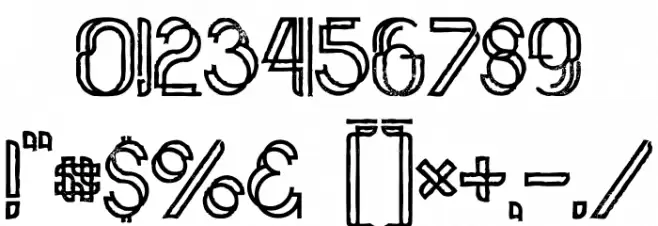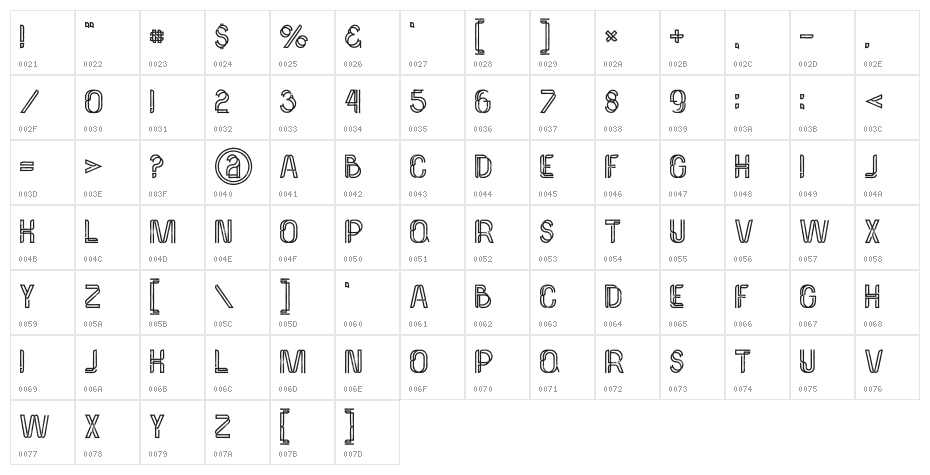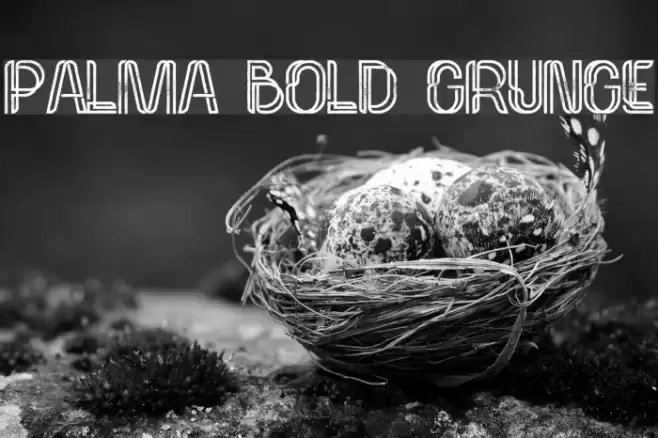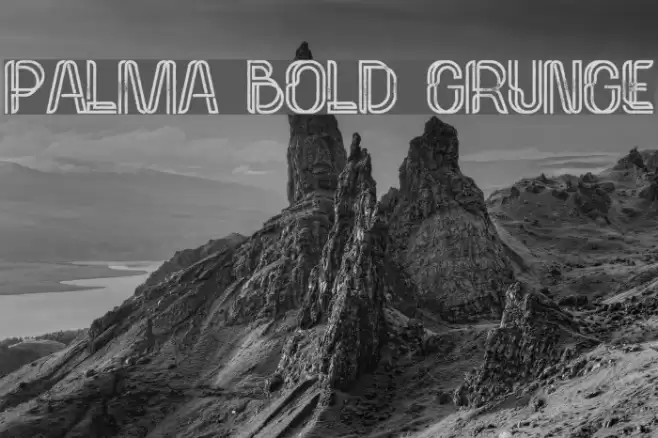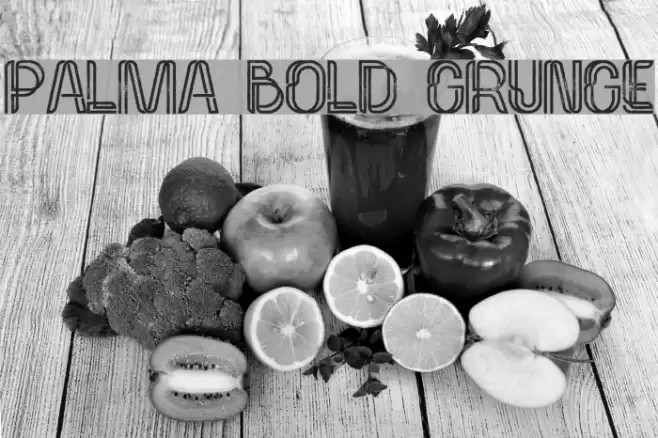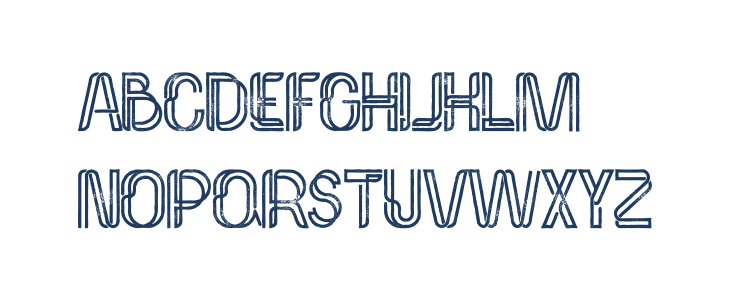
Palma Bold Grunge Font
Palma Bold Grunge Description
This font features a bold and grunge aesthetic, characterized by its distressed and textured appearance. The uppercase and lowercase letters maintain a consistent width, with a slightly condensed form. The numerals and special characters follow the same grunge style, adding a rugged and edgy feel. The font's unique texture gives it a worn, vintage look, making it ideal for projects that require a raw and authentic vibe. Its boldness ensures readability while the grunge elements add a layer of visual interest.
| Overall Style | Vintage, Grunge |
| Proposed Projects | Ideal for album covers, posters, branding for edgy or alternative products, and any design needing a vintage or rugged look. |